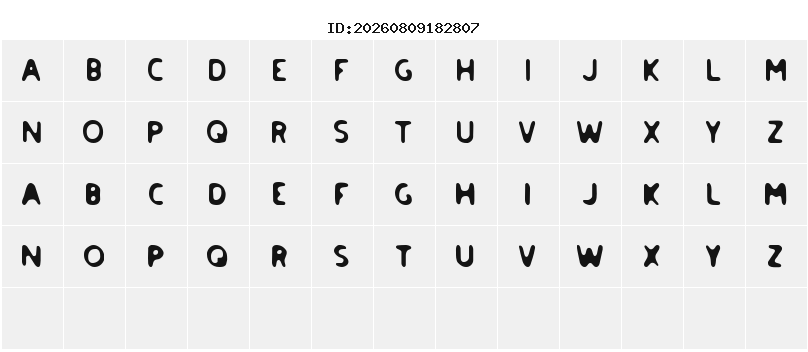
Paradise Road Preview
• Font Name: Paradise Road
• Font ID: Paradise Road Regular
• Full Font Name: Paradise Road
• PostScript Name: ParadiseRoad
• Character Count: 68
• Designer: Frédéric Rich
• Manufacturer: Frédéric Rich
About Paradise Road.ttf
Paradise Road.ttf is a modern, elegant sans-serif font designed for ultimate readability and visual harmony. Perfect for branding, headlines, web design, and print materials.